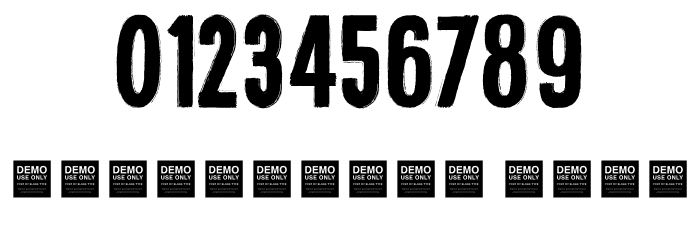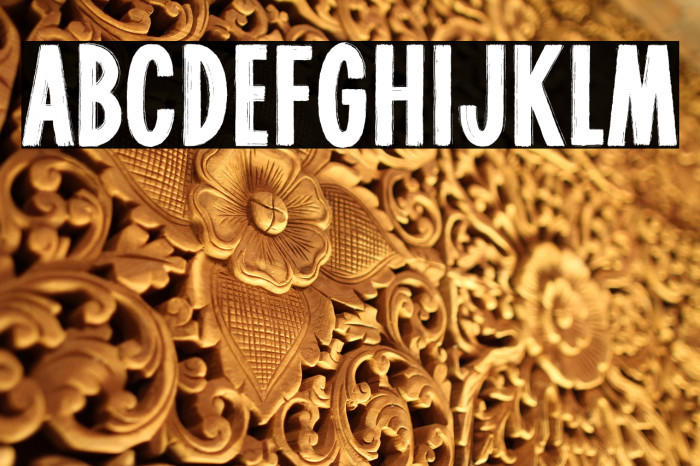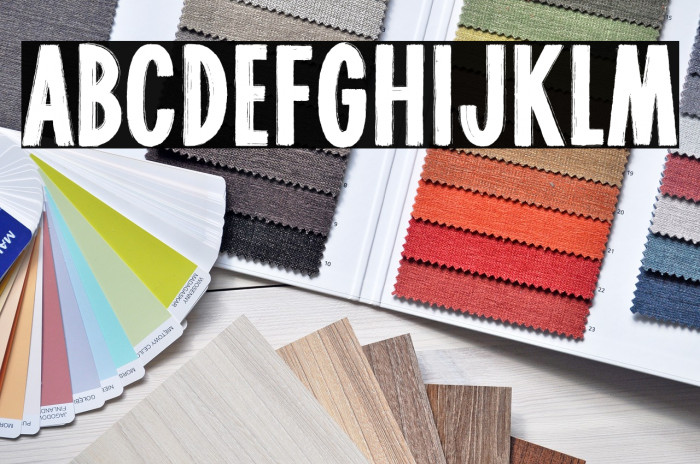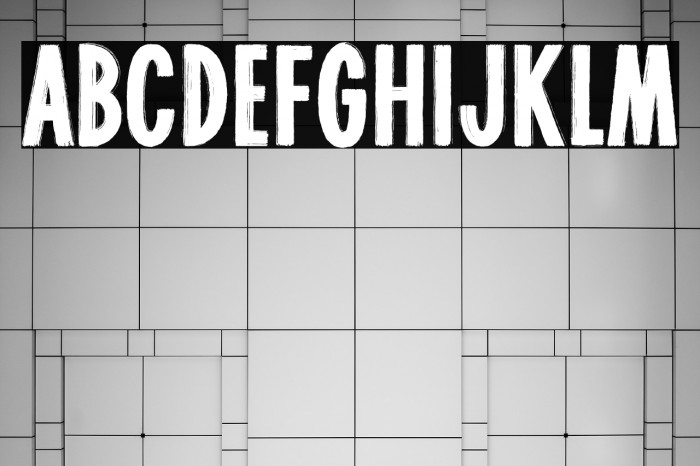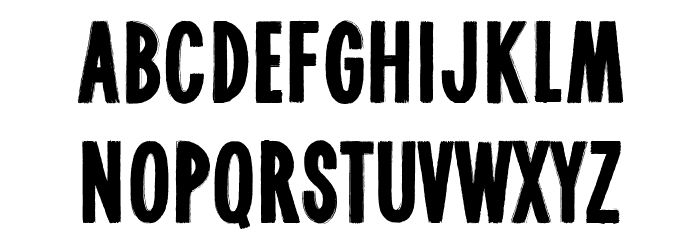
This font features bold, uppercase letters with a distressed, textured appearance that gives it a rugged, hand-crafted feel. The characters are uniformly wide, with consistent stroke thickness that adds to its bold presence. The numbers follow the same style, maintaining the distressed look. This font is ideal for projects that require a strong, impactful visual statement, such as posters, headlines, or branding materials. Its unique texture sets it apart, making it suitable for designs that aim to convey a sense of authenticity and boldness.
Proposed ProjectsIdeal for posters, headlines, branding, and any design needing a strong visual impact.